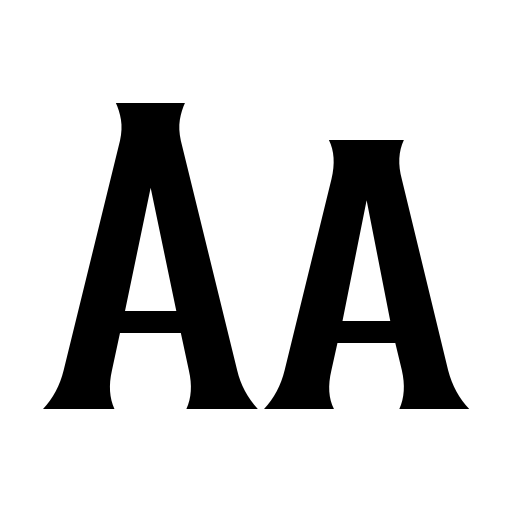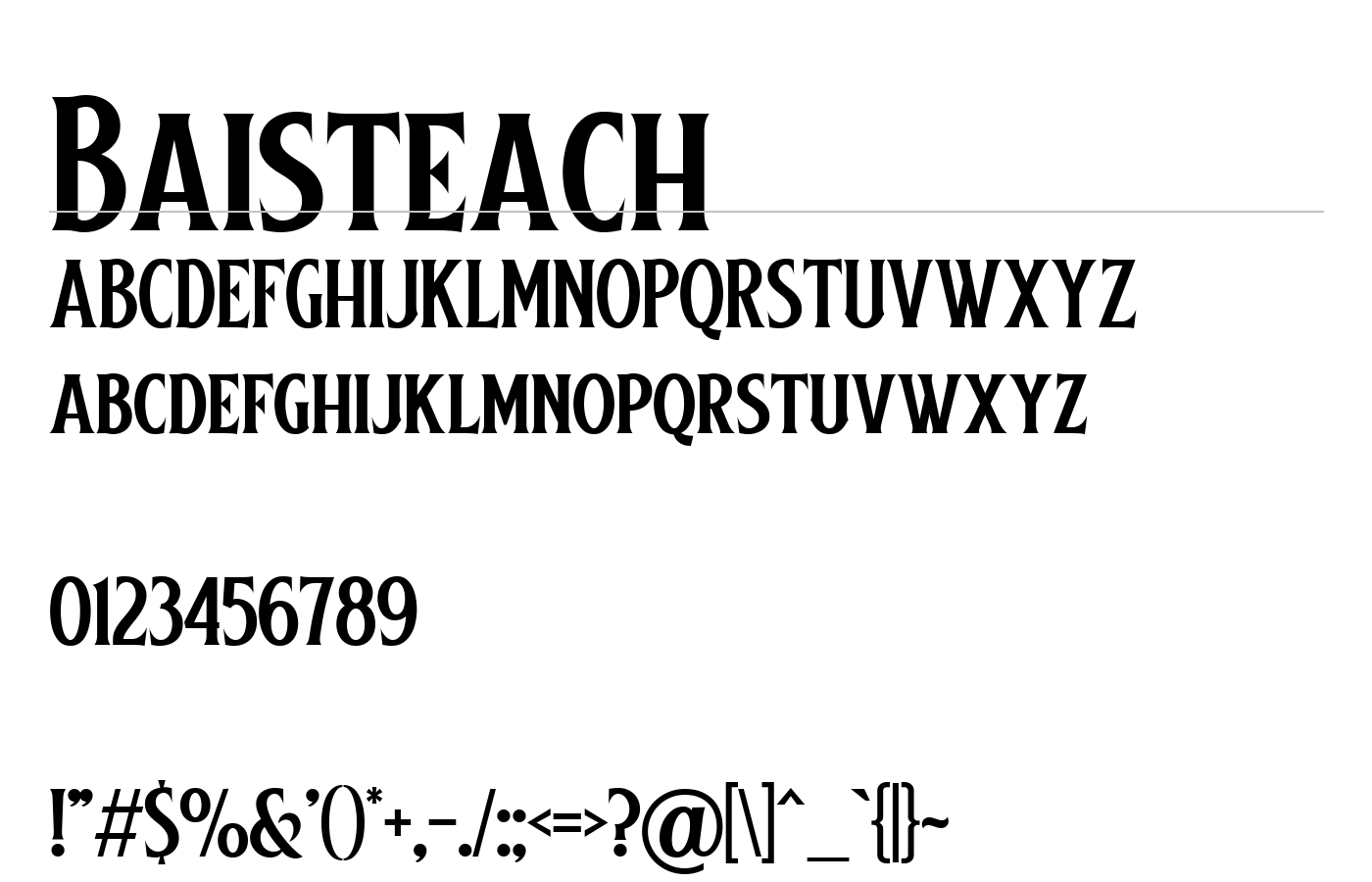
Baisteach is a bold Serif font with a sharp, high-contrast design that combines classic elegance with a strong presence. Its tall, narrow letterforms and subtle flare on serifs give it a stylish, sophisticated feel, making it ideal for headlines, logos, and branding that demands a refined yet striking look. This font works well for fashion, editorial, and luxury projects where a memorable, authoritative tone is desired.
Baisteach Font
About Baisteach Font